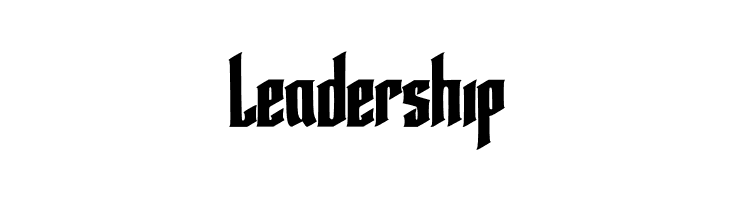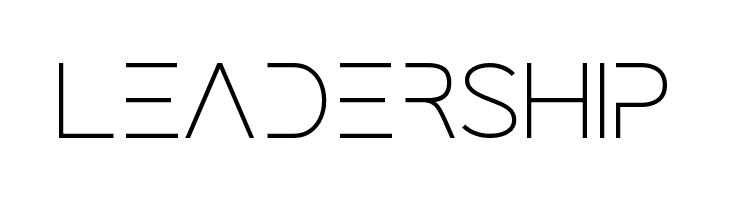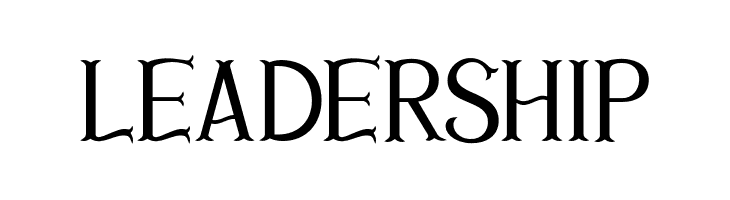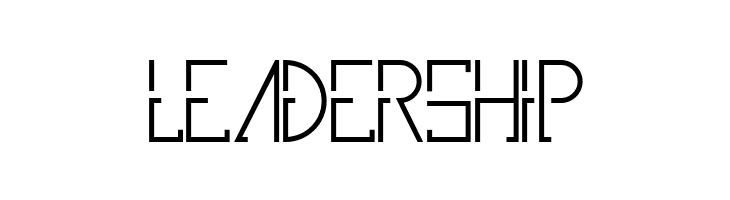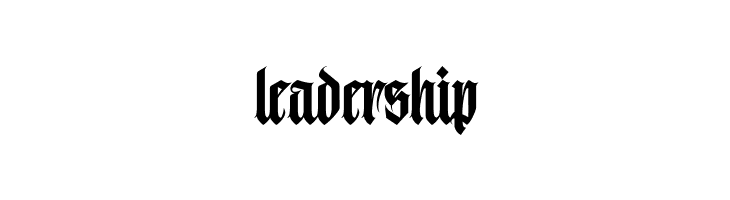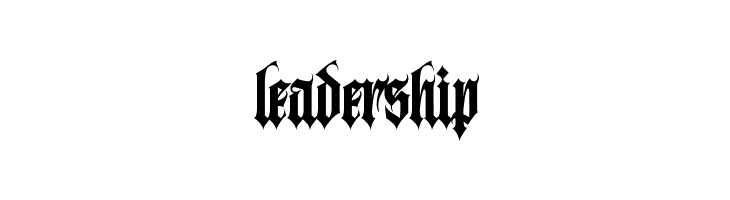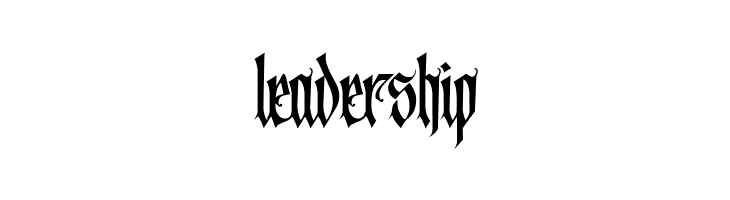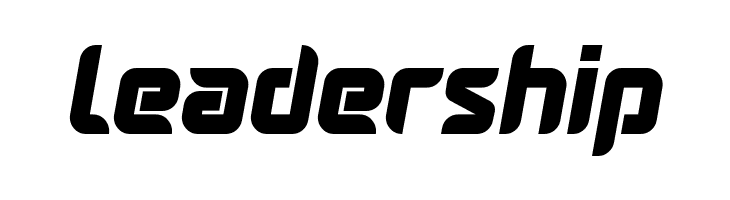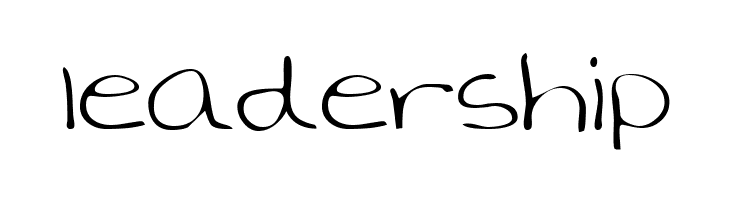
An elegant serif font with an italic slant, perfect for formal and sophisticated designs.
A light serif font with elegant curves and subtle contrast, perfect for readability.
A light, elegant serif font with a graceful italic slant.
A classic serif font with a friendly, approachable style and moderate contrast.
A dynamic, abstract handwritten script with sharp angles and fluid curves.
A bold, angular font with a Gothic-inspired, modern design.
A bold, gothic-inspired font with sharp, angular edges and high contrast.
A sleek, minimalist font with geometric lines and a modern aesthetic.
A sleek, modern font with geometric lines and excellent readability.
An ornate, Gothic-style font with intricate detailing and dramatic flair.
A bold, decorative blackletter-style font with intricate details.
A bold, italicized font with a modern, dynamic style.
A bold, ornate Gothic script with intricate flourishes and sharp, angular lines.
A bold, ornate Blackletter font with intricate serifs and flourishes.
A decorative font with characters resembling mechanical creatures.
A bold, intricate blackletter font with gothic and medieval influences.
A bold, geometric font with a futuristic and retro aesthetic.
A bold, geometric font with a futuristic and aerodynamic style.
A bold, modern sans-serif font with geometric lines and uniform thickness.
A modern, geometric font with rounded edges and a bold weight.
A sleek, geometric font with a modern, minimalist aesthetic.
A clean, modern font with geometric shapes and rounded edges.
A sleek, modern font with thin lines and balanced spacing.
A modern, geometric sans-serif font with a minimalist design.
An artistic and geometric font with decorative elements and narrow characters.
An Art Deco-inspired font with elongated, narrow characters and geometric elements.
An artistic and decorative font with elongated, narrow characters and whimsical elements.
A bold, playful script font with a handwritten style and high contrast.
A bold, playful script font with flowing strokes and rounded edges.
A sophisticated serif font with sharp serifs and elegant curves.
A sophisticated serif font with sharp serifs and elegant curves, ideal for modern and classic designs.
A bold, geometric font with sharp angles and a modern, futuristic style.
A bold, italicized font with a modern, angular design.
A modern geometric font with sharp angles and a futuristic aesthetic.